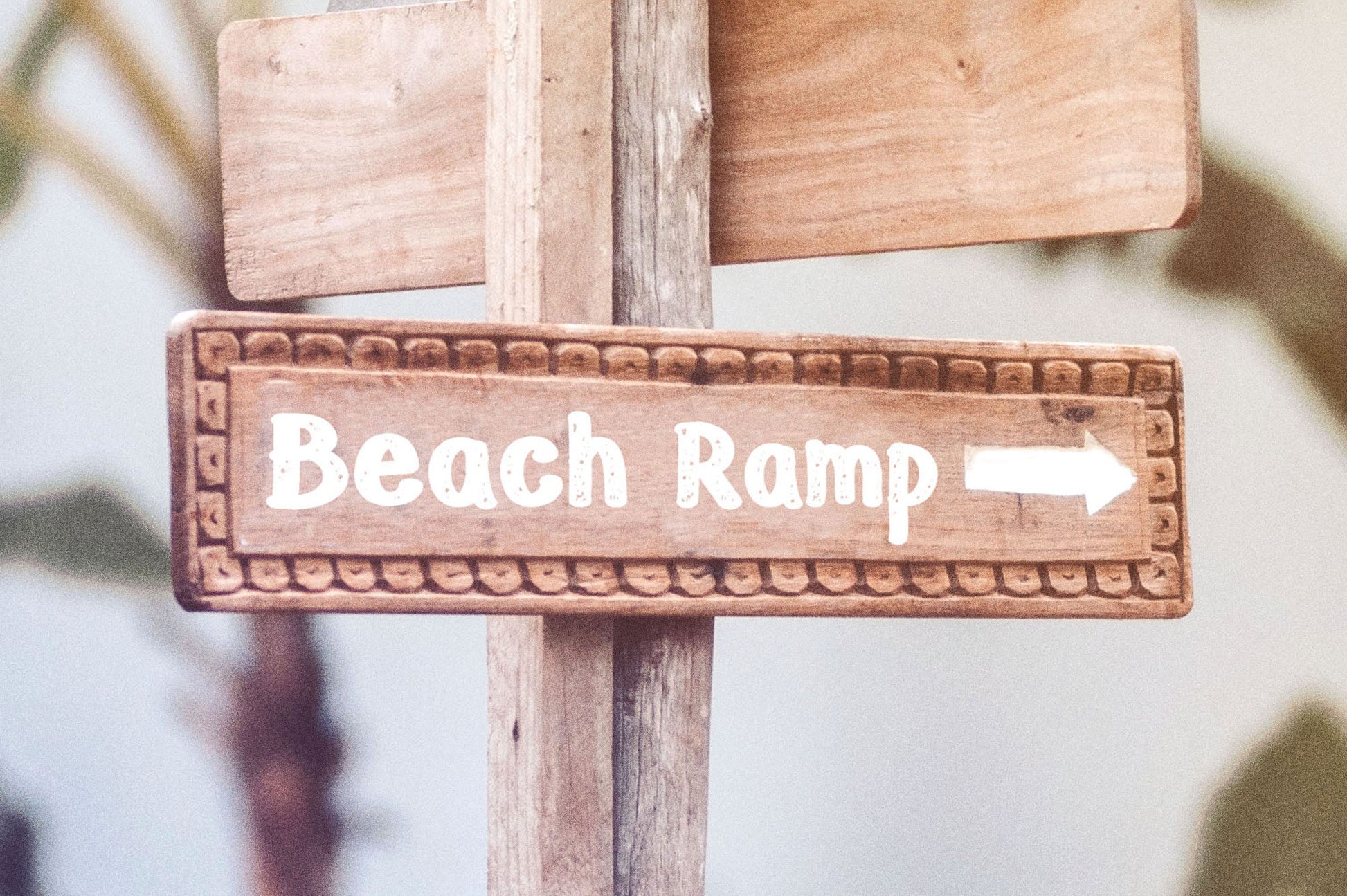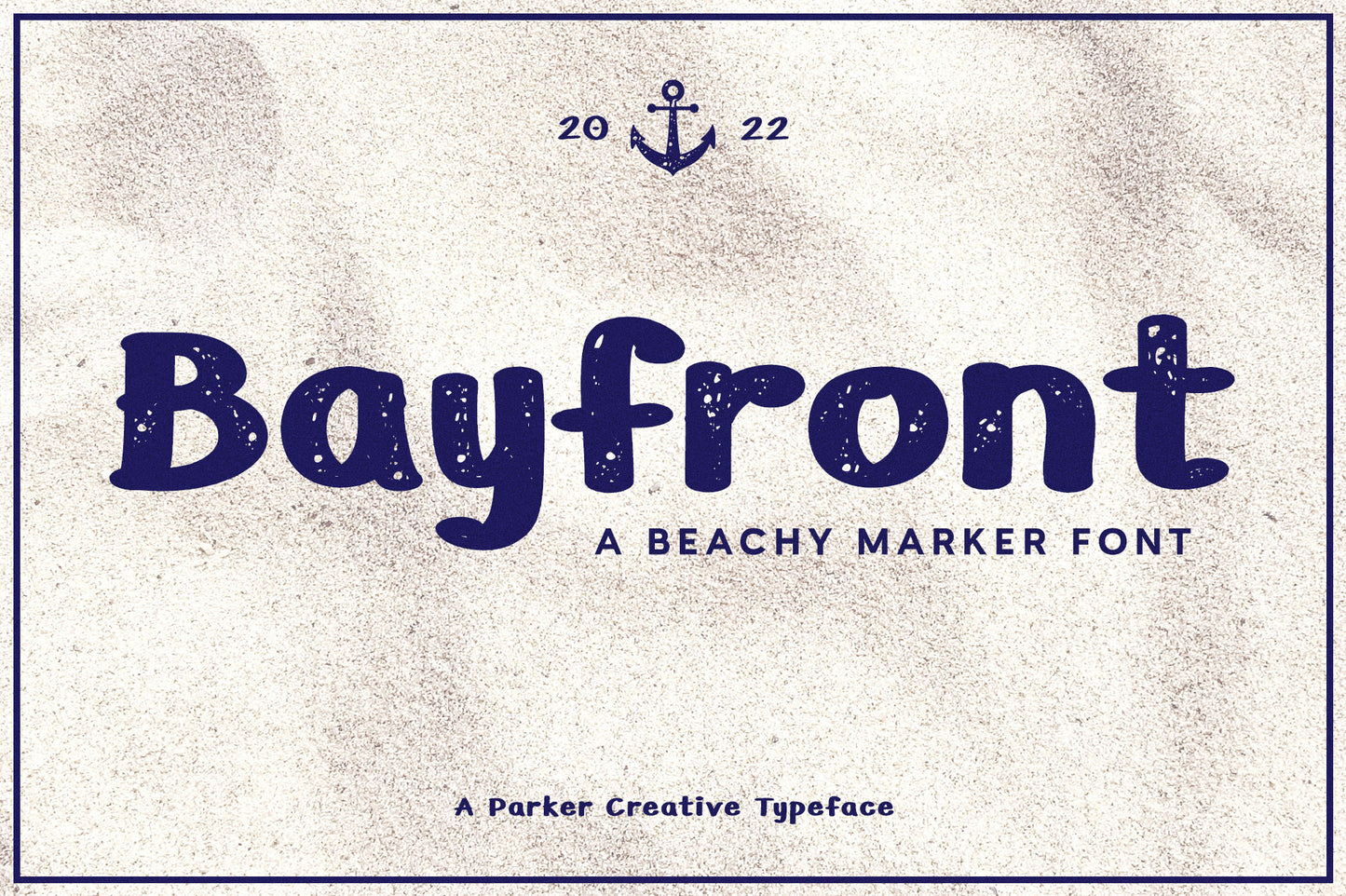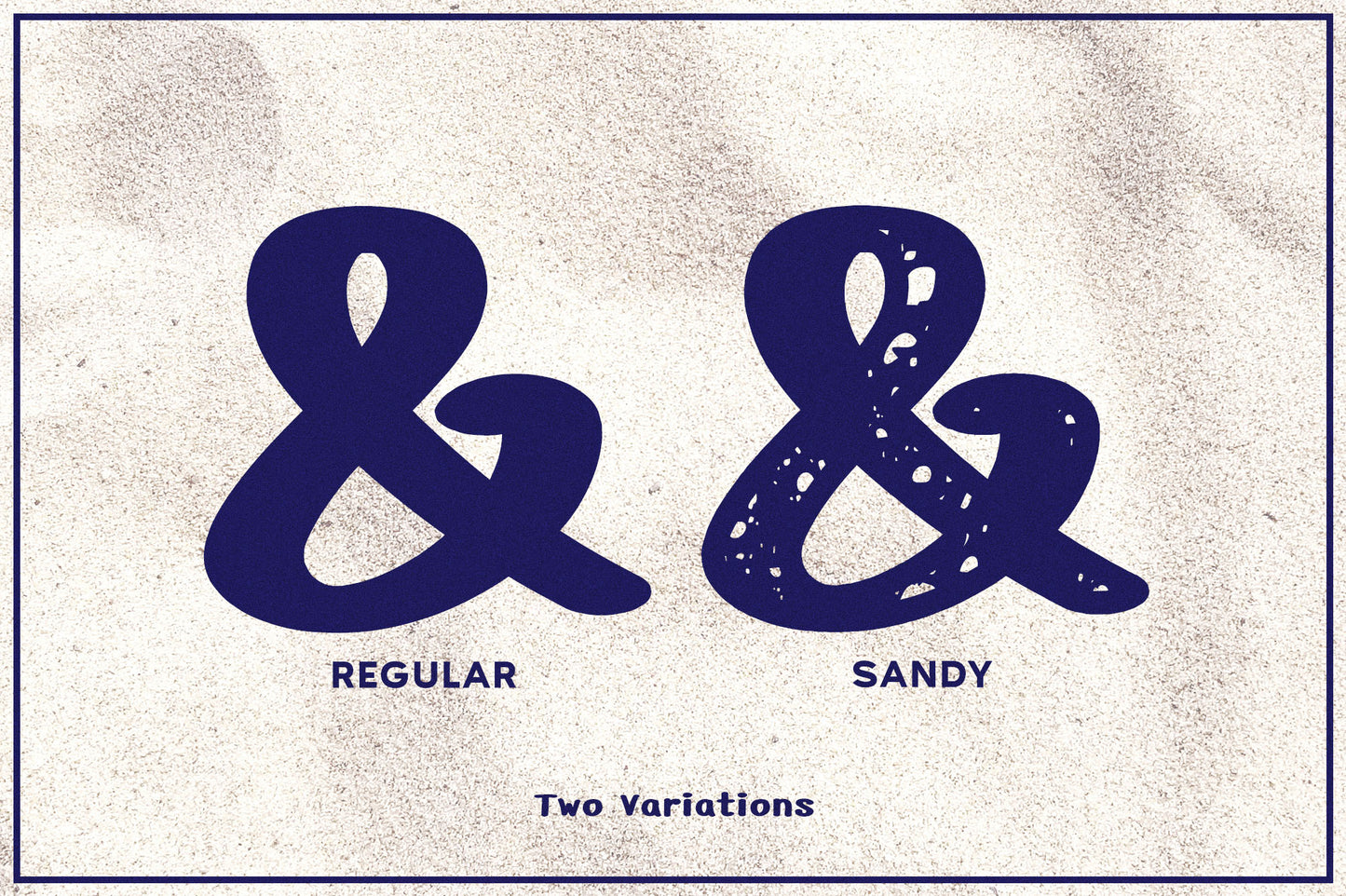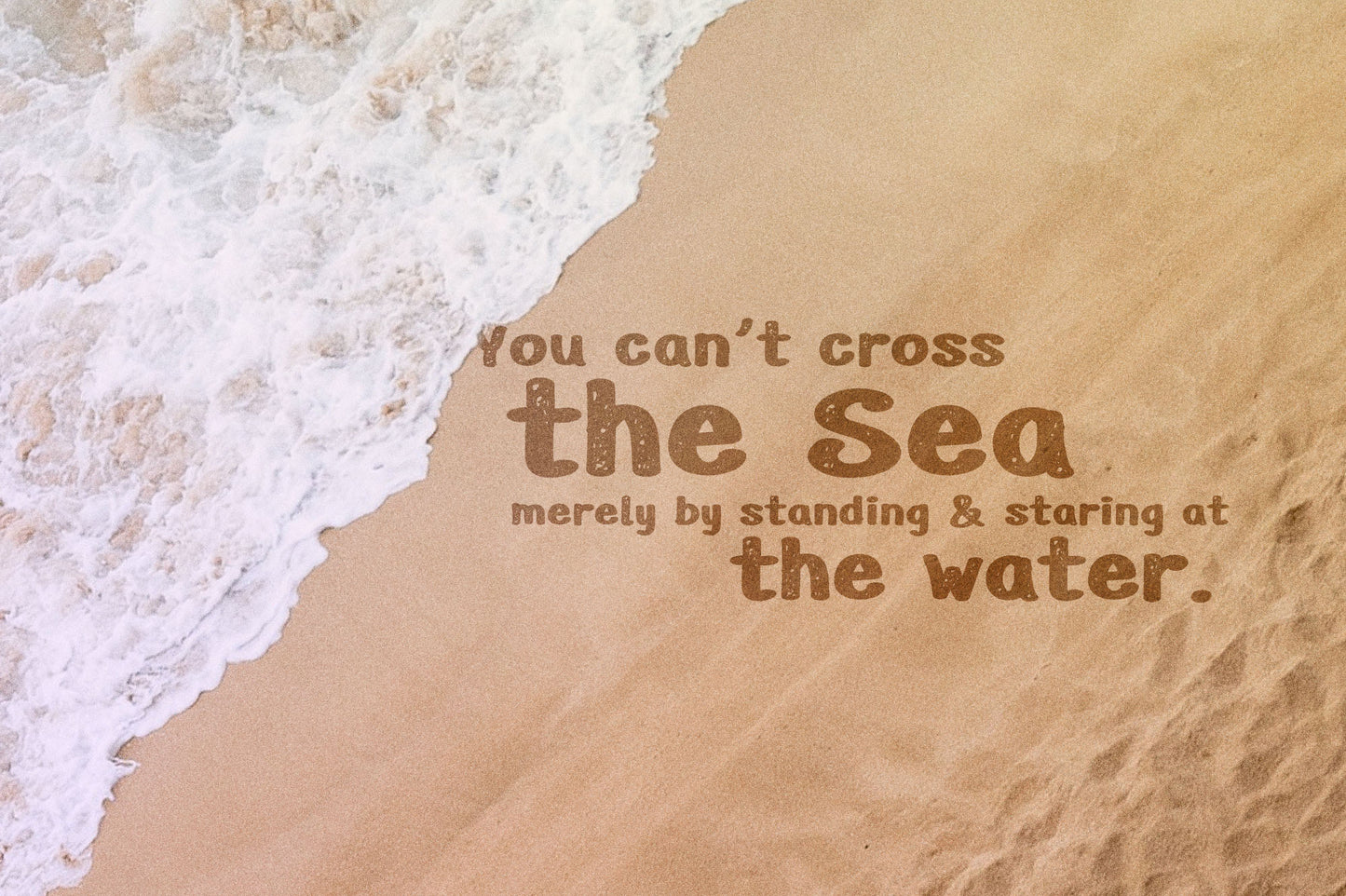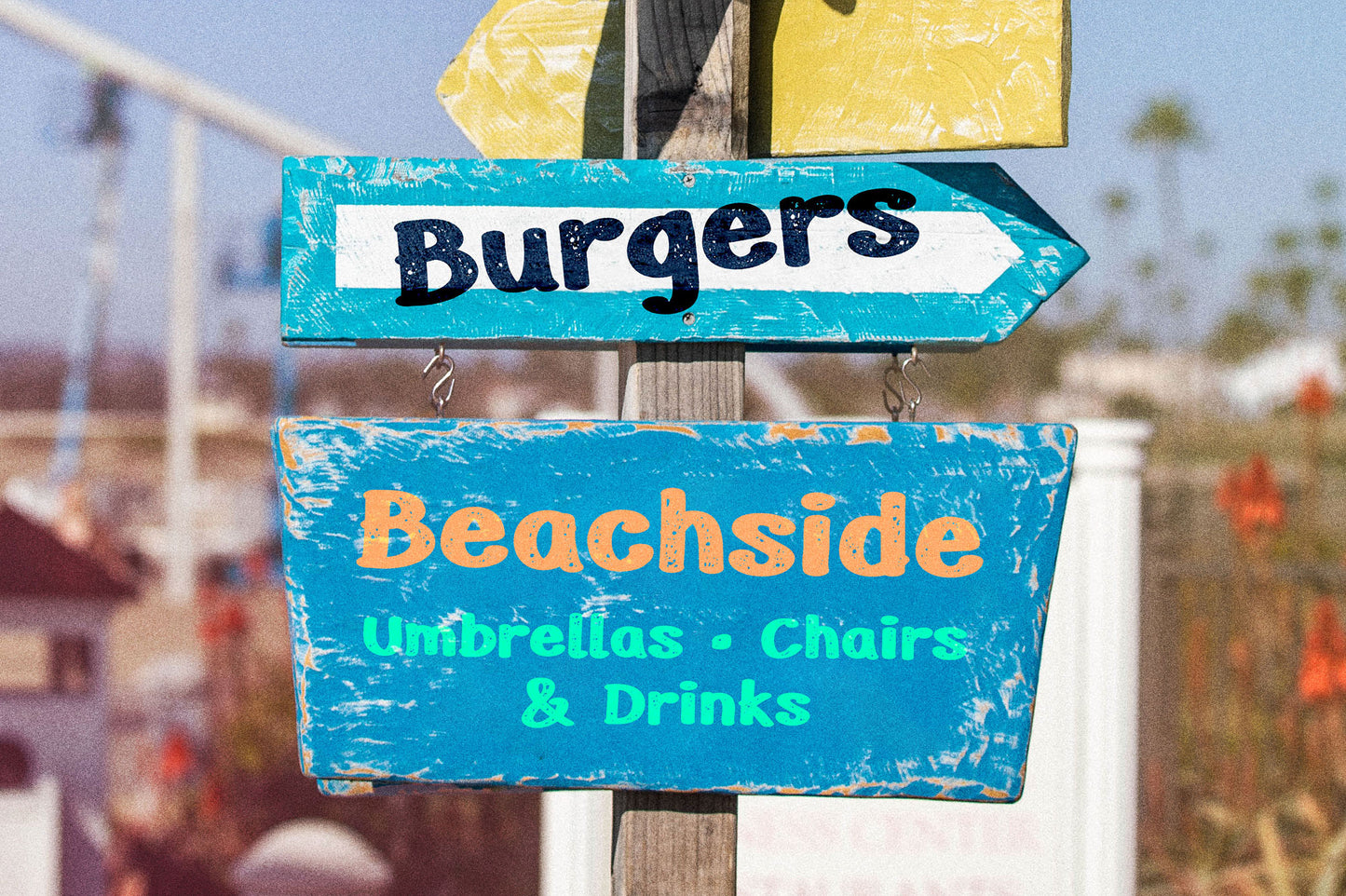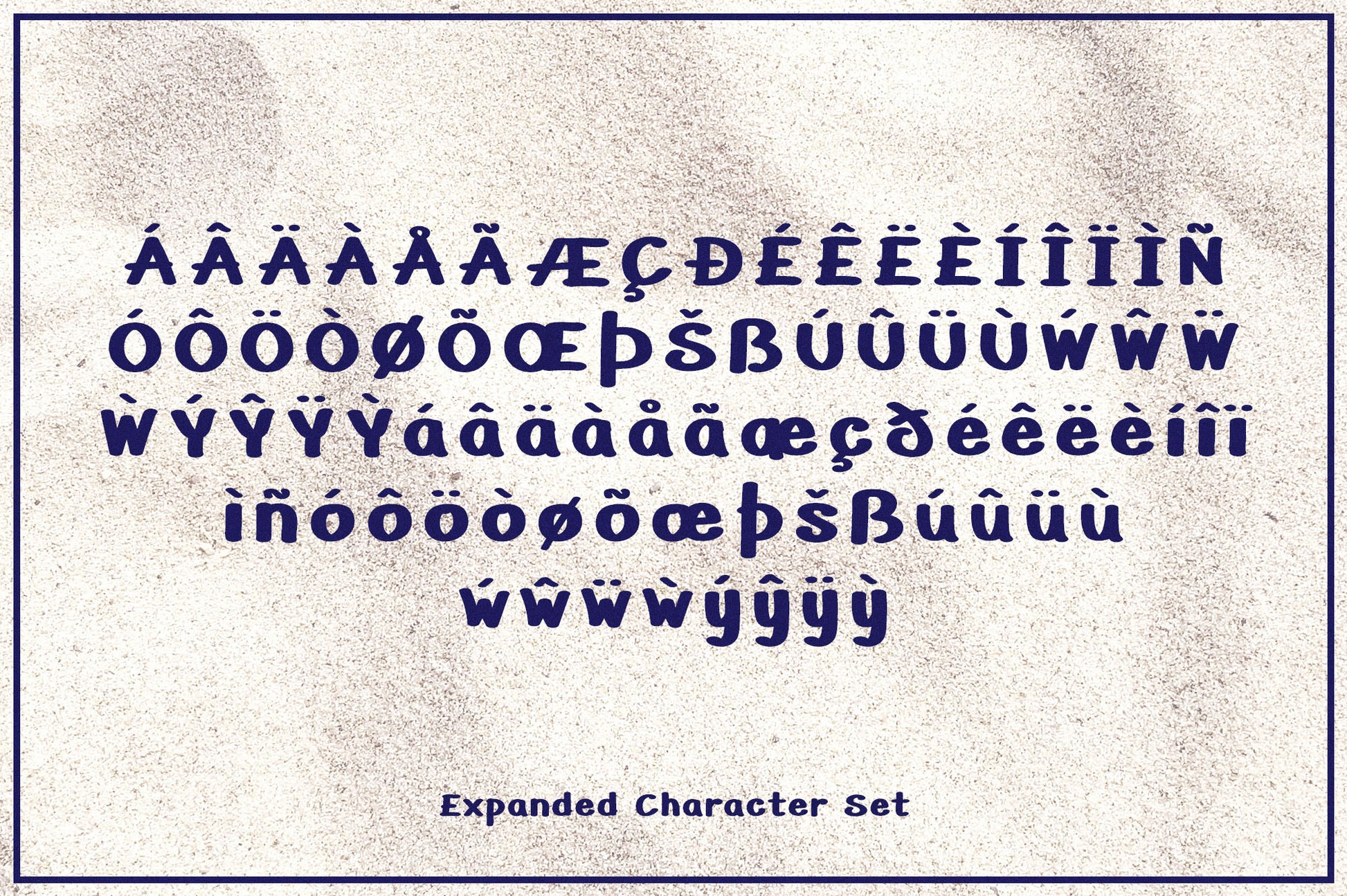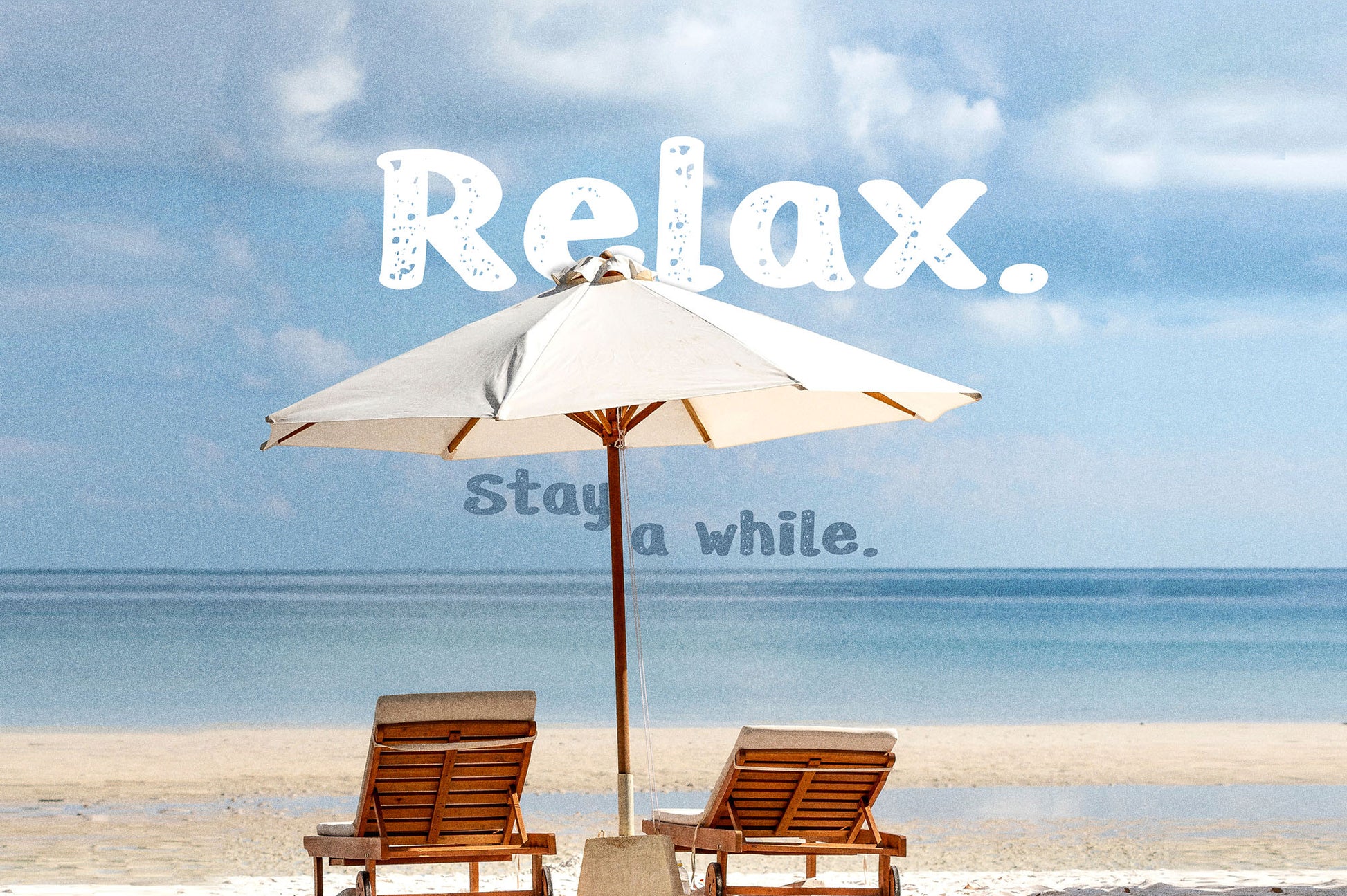
Bayfront Beachy Marker Font
Introducing Bayfront, a thick handwritten marker font with a sandy variation! Designed to emulate the casual look of marker writing, Bayfront also takes to the beach with a special 'sandy' version which features large distressed markings and imperfections.
This distressed style creates a very natural weathered look which is great for bringing an interesting texture to your signage, social media graphics, marketing collateral, websites (website-ready WOFF files included), and more.
Bayfront just might be the perfect summertime font for your next project!